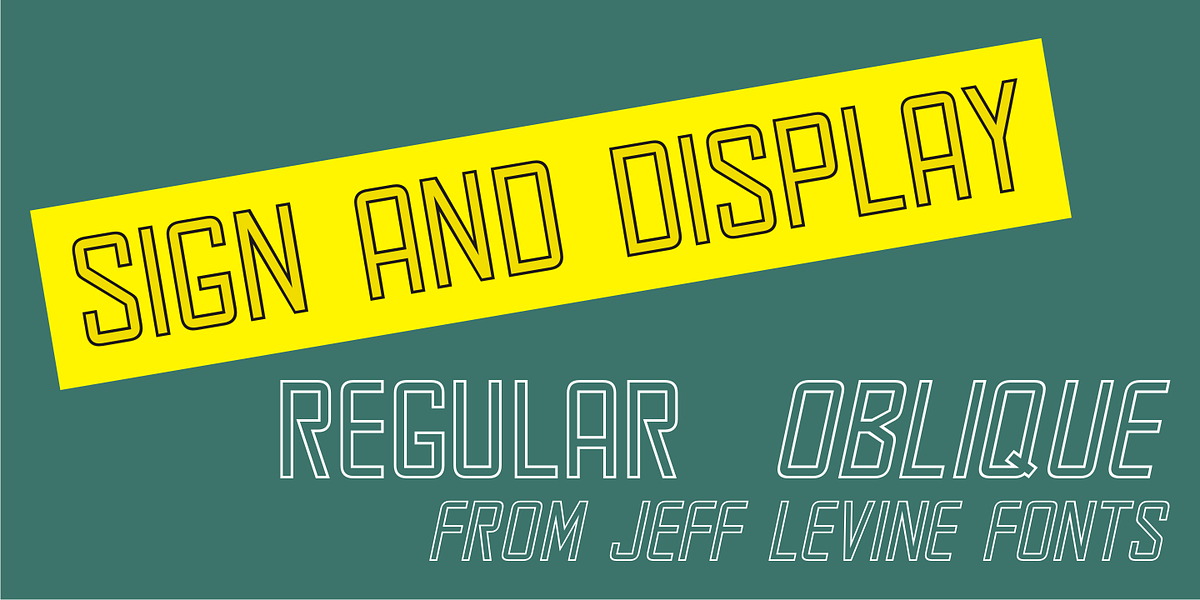
Sign and Display JNL
Sign and Display JNL is a long-overdue companion font to 2009’s Sign and Poster JNL.
The original design models were Art Deco influenced die-cut cardboard letters and numbers manufactured by the Duro Decal Company of Chicago. Square in shape with rounded corners, the thick cardboard letters were used for making show-cards and other display signage.
Subsequently, Duro used the same style of lettering to manufacture water-applied decals for boat identification and other uses.
It was a set of these decals (with a black outline and yellow interior) that inspired the outline typeface Sign and Display JNL, which is available in both regular and oblique versions.